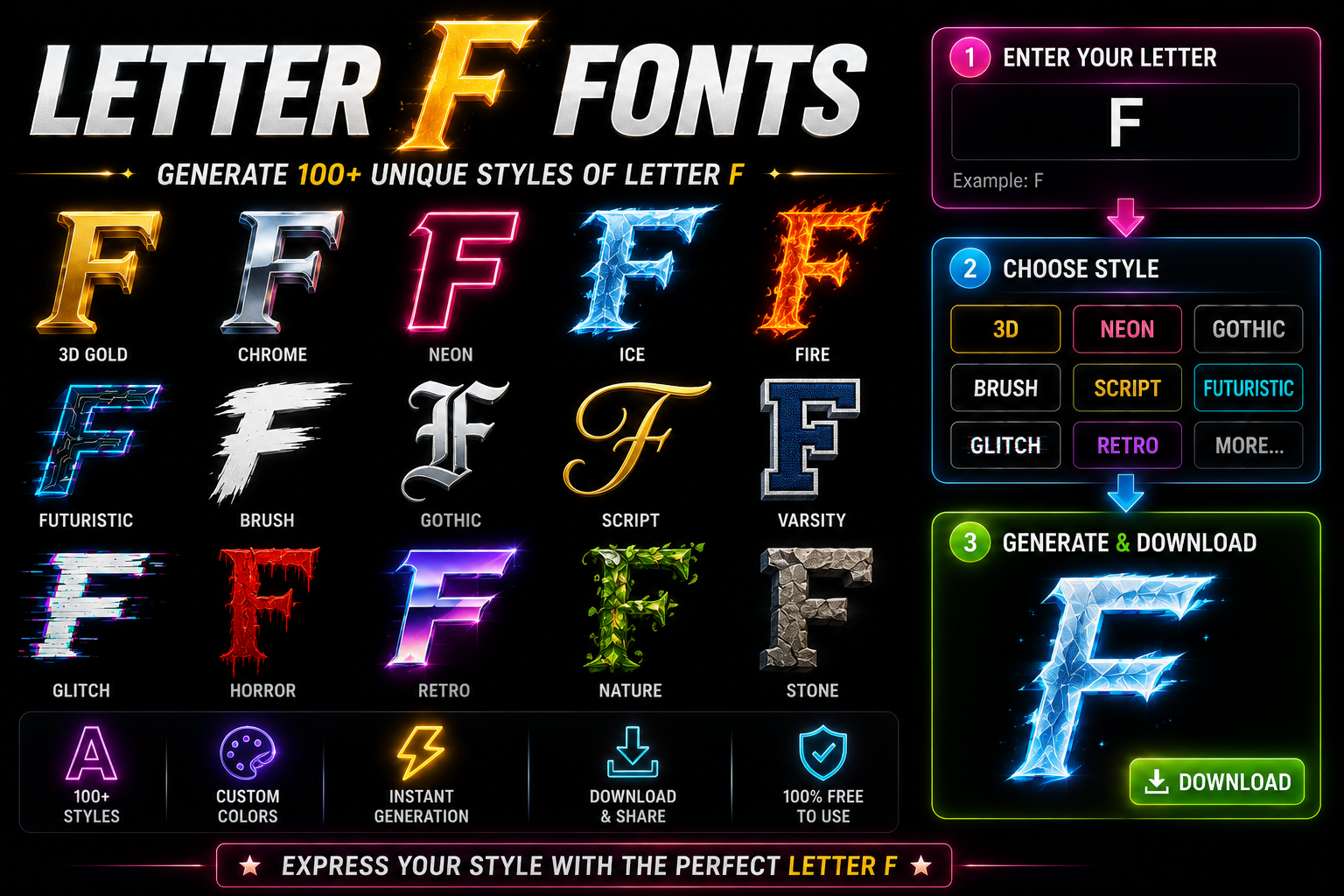
The letter F carries real personality beyond plain alphabets. From cursive loops to gothic F edges, each of its stylized versions reflects context — whether for gaming profiles, Instagram aesthetics, or polished business brands demanding authority.
A Font Generator gives instant access to 150+ cool text styles — just tap a preferred style, copy the result, then paste it directly into bios, messages, or any text box across social media platforms immediately.
Unicode drives every fancy text variant through character encoding — assigning each glyph a unique code point. Apps, devices, and modern platforms read these values natively, so text conversion flows across TikTok, Facebook, and chats flawlessly.
Popular Styles for the Letter F
Gothic letterforms shaped the letter F’s darkest identity long before social media arrived. The heavy strokes and dark themes embedded in medieval scripts gave F a bold commanding presence that still defines aggressive typography today.
Fancy F variations grew from calligraphy traditions where elegance wasn’t decorative excess — it was deliberate craft. Cursive F forms brought aesthetics that still dominate popular styles across wedding typography, fashion branding, and premium invitation design.
Gaming communities demanded something print culture never could — raw impact. Gothic F names and stylish F variations built intensity into competitive branding. That visual bold dominance permanently changed how designers approach aggressive letter F styling.
What I find genuinely useful: the F Font Generator lets you drop any text into the input box, hit generate, and flip through 150 unique styles — cursive, italic, monospace, fancy — purpose-built for social media profiles.
Once satisfied, copy and paste the chosen style directly into Instagram, Twitter, or TikTok bios. Unicode characters naturally bypass typical font encoding barriers, giving usernames, posts, and content real aesthetic value without needing any download.
In my experience, the click, generate, and paste flow covers 100 deployment cases across LinkedIn, Discord, and WhatsApp status sections. The stylish fonts you pick also signal tone — shaping user experience and holding aesthetic command.
Most people assume stylish font styles mean a different typeface. They never do. Every cursive F, bold F, and bubble F exists as a unique Unicode character already encoded within the standard keyboard’s Unicode layer.
A font generator never changes actual fonts. It maps normal text to mathematical script character variations inside Unicode’s vast extended math blocks. Characters like elegant F and aggressive F exist in dedicated letterlike Unicode regions.
Limited Unicode support in a destination app causes boxes instead of rendering stylish characters. 95% of modern devices work correctly. Platforms like Instagram, Twitter, and WhatsApp fully support Unicode text symbols across iOS and Android.
Where to Use Fancy F Fonts
Gaming communities like Discord servers thrive on identity. Competitive teams use text styling to communicate authority, while engaged members build profile pictures using a styled F that reflects platform culture without creating visual noise online.
Social media platforms like Facebook favor Fashion bios built around stylish letter forms. Creative projects use letter logos and graphic design assets. A well-chosen display F carries high-quality presence that plain text simply cannot match.
Script, Serif, and elegance in fancy characters define F styling for dark themes or names. Bold uppercase choices carry impact, while lowercase variants maintain aesthetics. Display F fonts serve individual branding and logotype goals effectively.
Platform-Specific F Styling Guide
Display names shaped by the right app leave impressions. For professional F typography, elegant styling suits business environments naturally. Gaming identities benefit from Futuristic or Fire lettering, where Streetwear influence drives the aesthetic energy strongly.
Unicode Mathematical Script Small f renders differently across operating systems. Unicode names help determine whether styled names appear correctly on email addresses, well beyond simple copy and paste tools or a basic text generator alone.
Account login usernames never support stylish writing through aesthetic F designs — technical fields demand standard F only. Yet display elements like social bios openly welcome diverse styles — Decorative, Signature, and Brush — with real creative freedom.
Fonts Starting with Letter F (A–Z Free Directory)
Typographic selection dictates brand perception because a system rejects erratic formatting. Deploying an authoritative mathematical script injects raw attitude into modern interfaces. However, excessive historic ornamentation evokes medieval aggression, which completely disrupts clean layout harmony.
What Are the Most Popular Styles for the Letter F?
Type designers know a technical F demands strict geometric precision. Conversely, crafting a fluid casual F channels raw emotional power. I often inject a digital Fury into these forms, breaking traditional rules across multiple sizes.